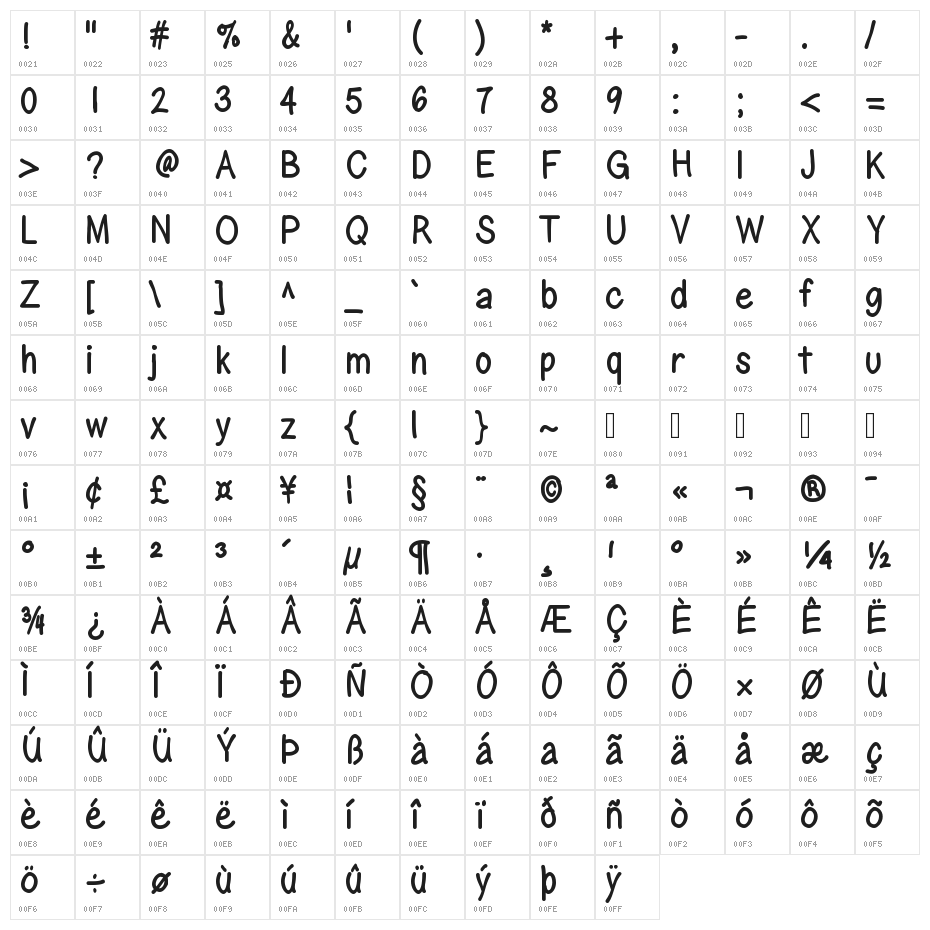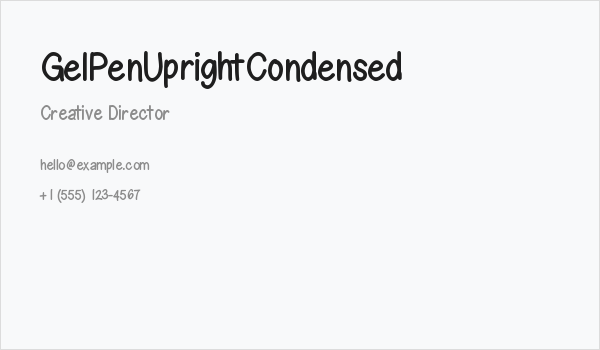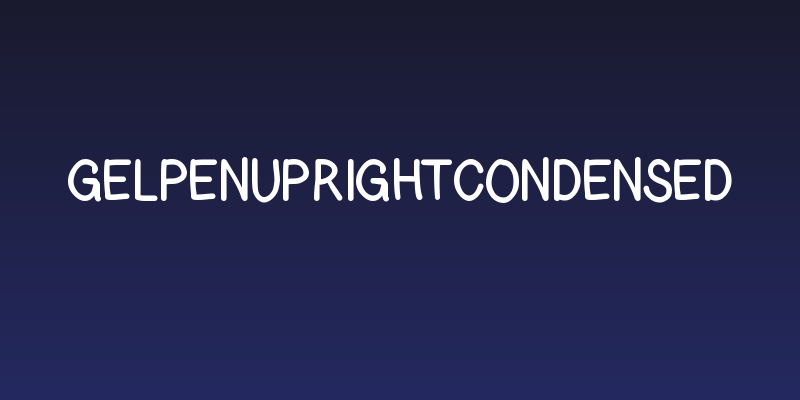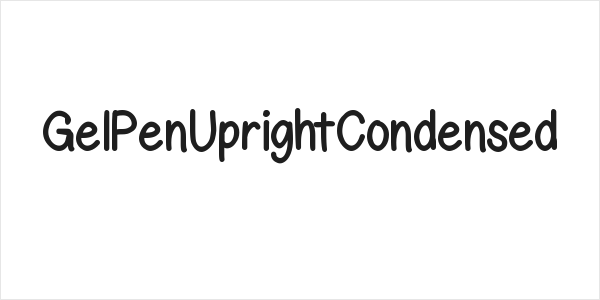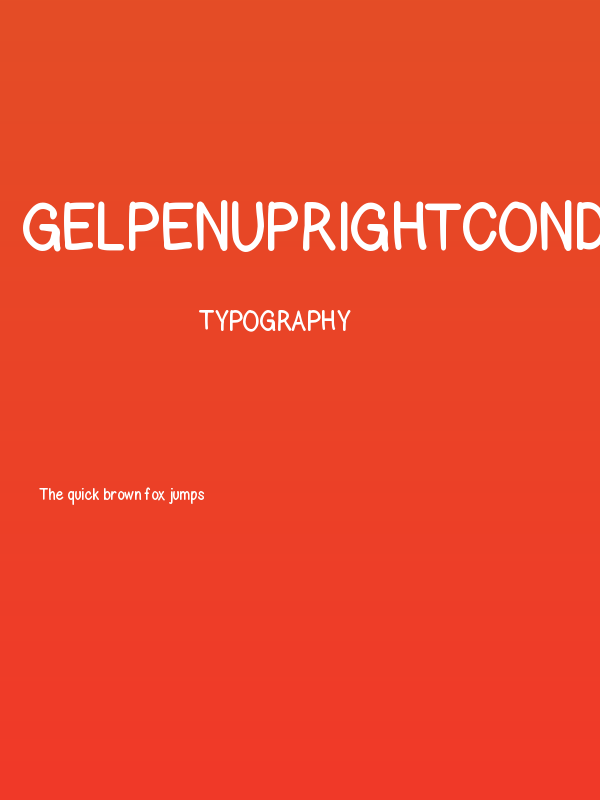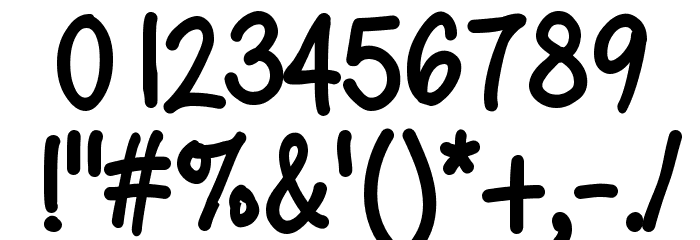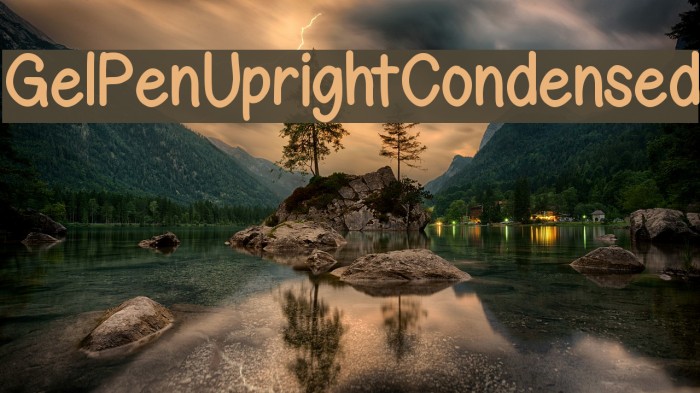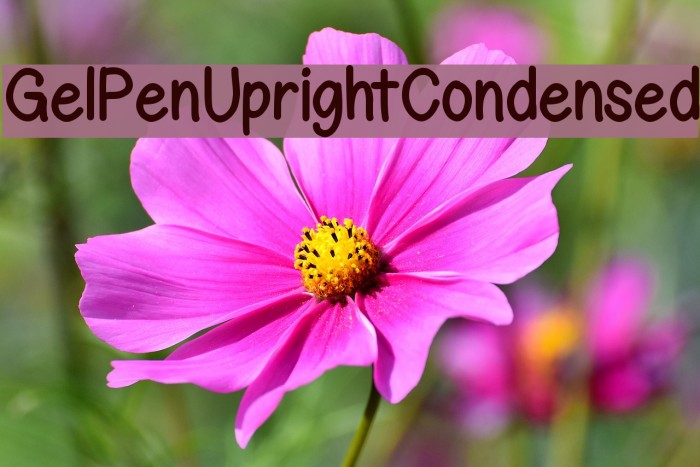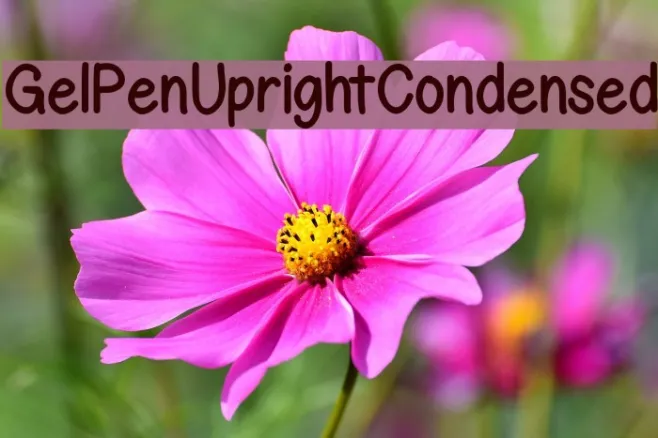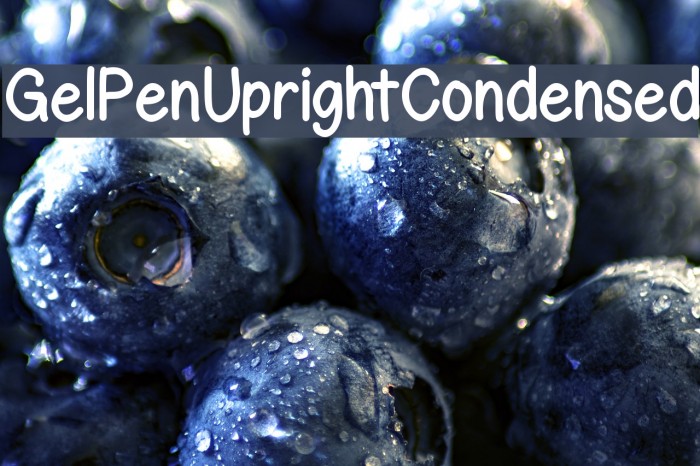
GelPenUprightCondensed Font
GelPenUprightCondensed Description
This font features a playful and casual handwritten style, reminiscent of writing with a gel pen. The characters are upright and condensed, giving a compact appearance while maintaining legibility. The strokes are consistent in width, providing a uniform look across all characters. The rounded edges and slightly irregular shapes add a friendly and approachable feel. This font includes a full set of uppercase and lowercase letters, numbers, and a variety of special characters, making it versatile for different uses.
| Use Case | Headlines, Informal text, Branding |
| Proposed Projects | Ideal for children's books, greeting cards, informal invitations, and playful branding projects. |